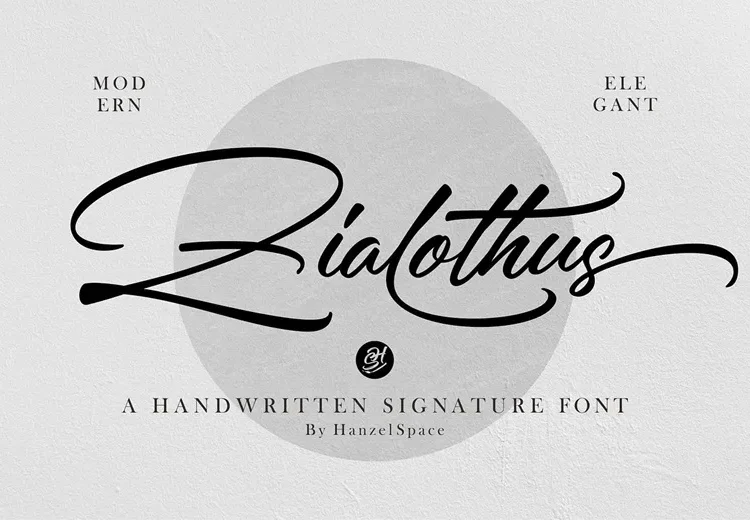
Zialothus Font
Zialothus is an enchanting handwritten signature font designed to bring a natural and delightful touch to your creative projects. This charming typeface, crafted meticulously by hand, features unique alternative swashes that mimic the organic flow of natural handwriting. Whether you’re looking to add a whimsical flair or a professional elegance to your work, Zialothus is a versatile option that blends seamlessly into various design themes. Its distinct style ensures your creations will stand out, exuding authenticity and charm.
This typeface elevates your design efforts with its 26 alternate swashes, providing endless opportunities for customization. These swashes enable designers to craft personalized and intricate compositions, making Zialothus perfect for creating logos, branding elements, quotes, and greeting cards. Whether you are working on a digital project or printed materials, this font ensures a polished and sophisticated finish, aligning perfectly with modern aesthetic demands.
One of the standout qualities of Zialothus is its ability to cater to diverse design needs while maintaining its unique appeal. From chic wedding invitations to compelling social media graphics, Zialothus offers a blend of playfulness and professionalism. Its hand-drawn essence adds an intimate and genuine vibe to any piece, resonating well with audiences seeking authenticity in design. This font is a perfect companion for creative minds eager to explore new horizons.